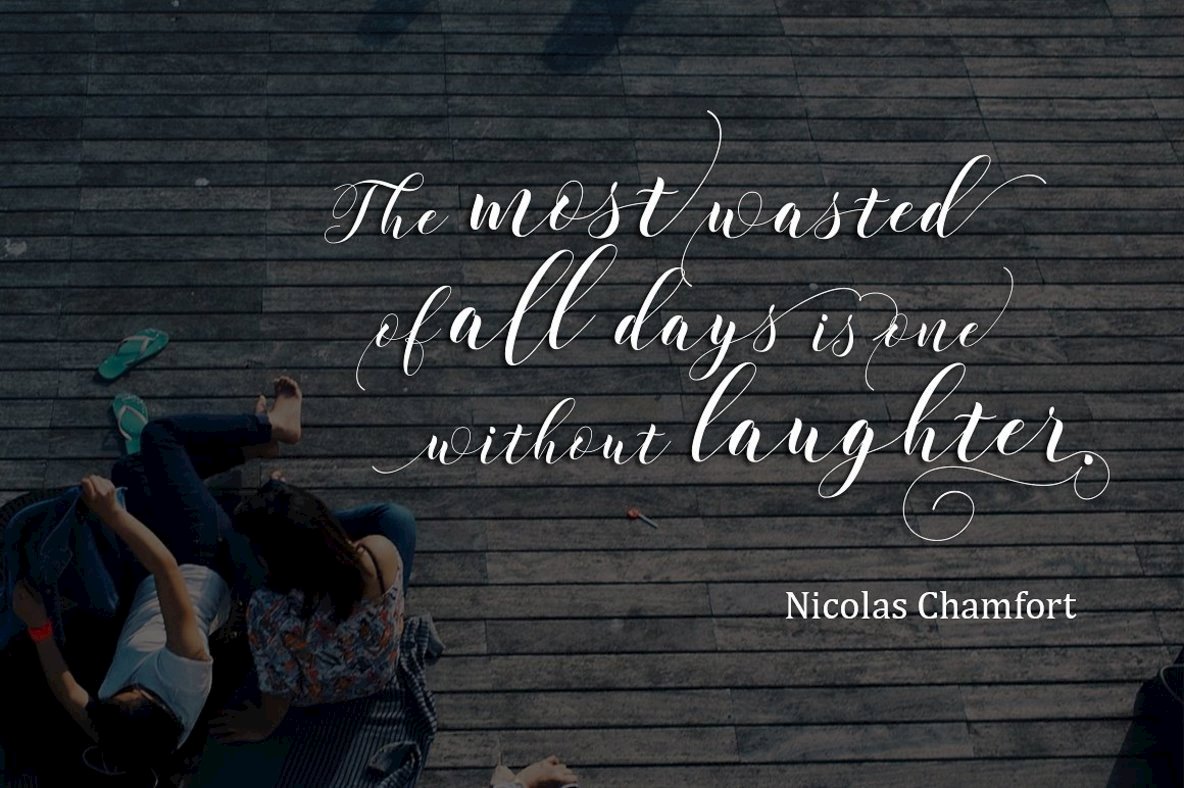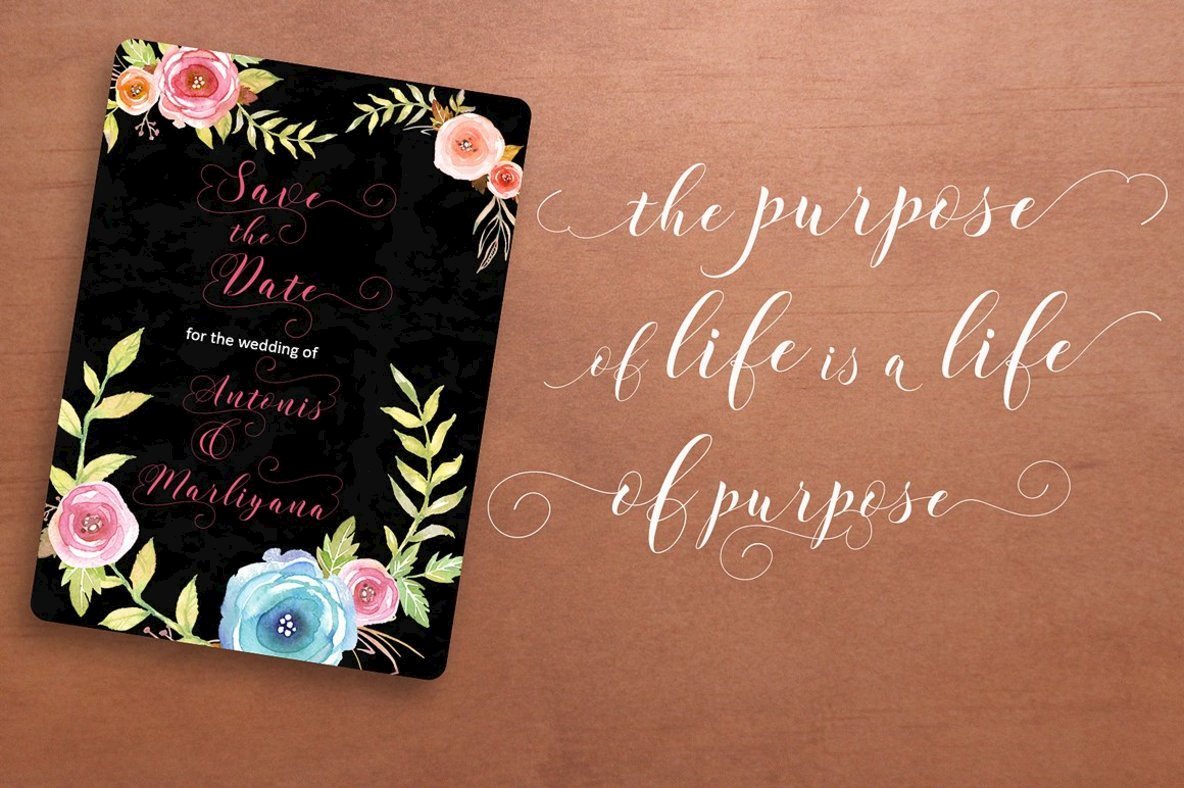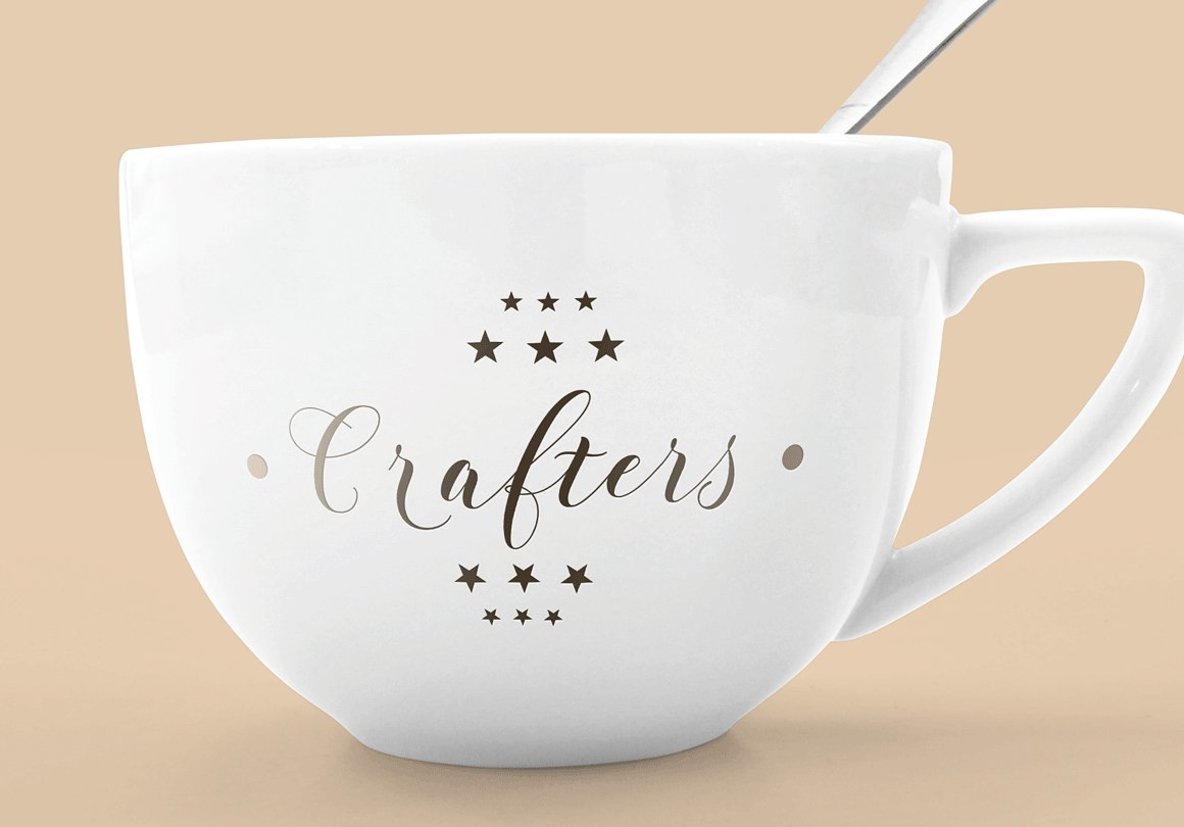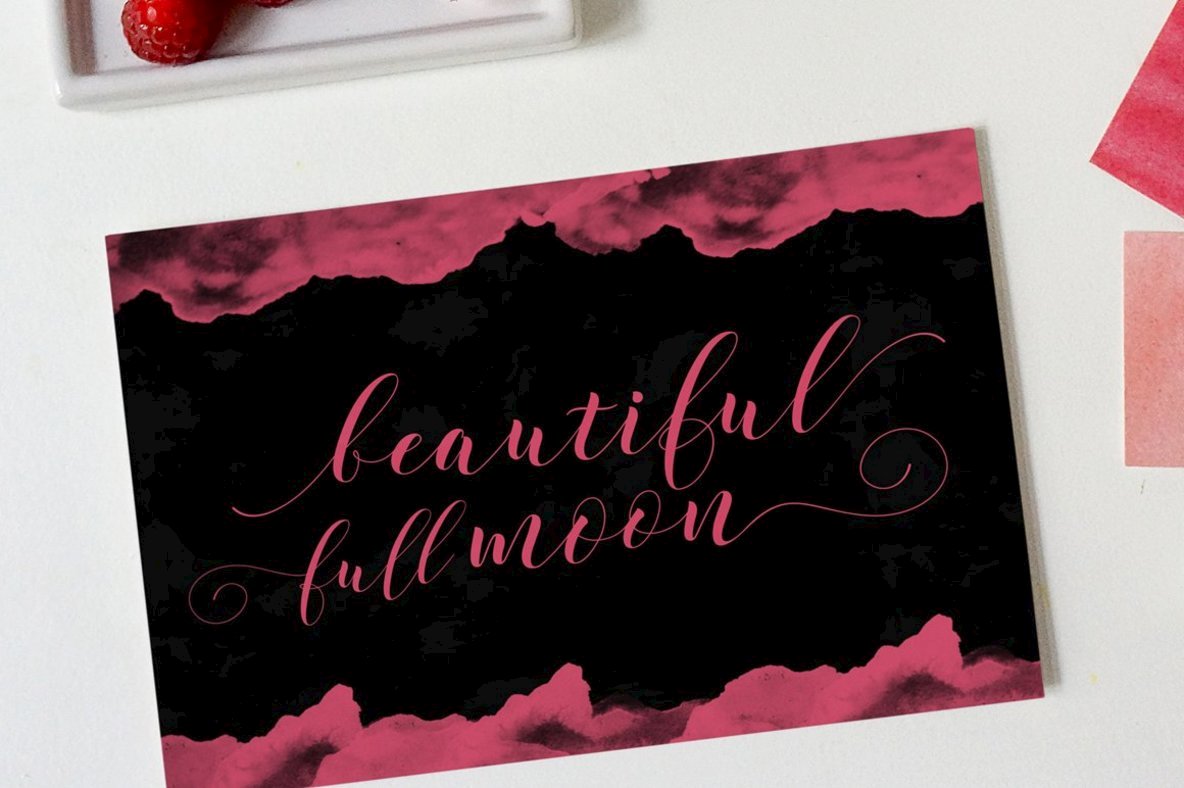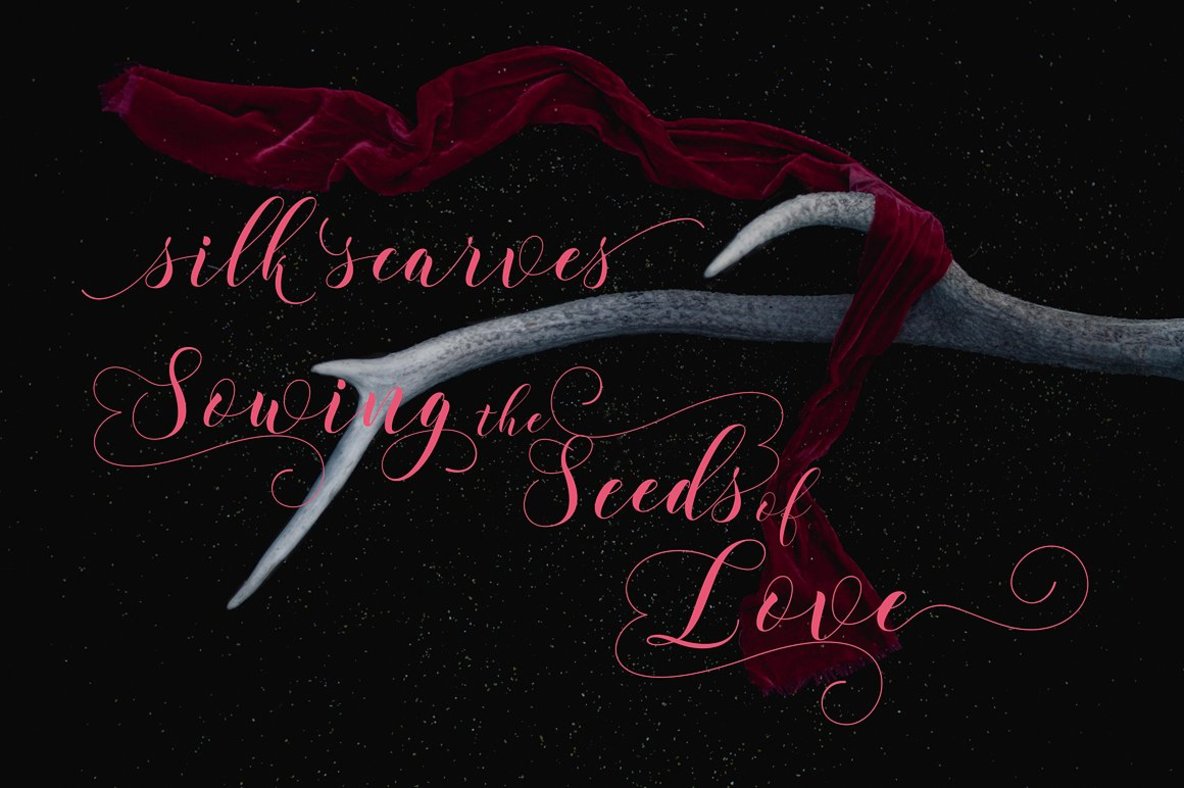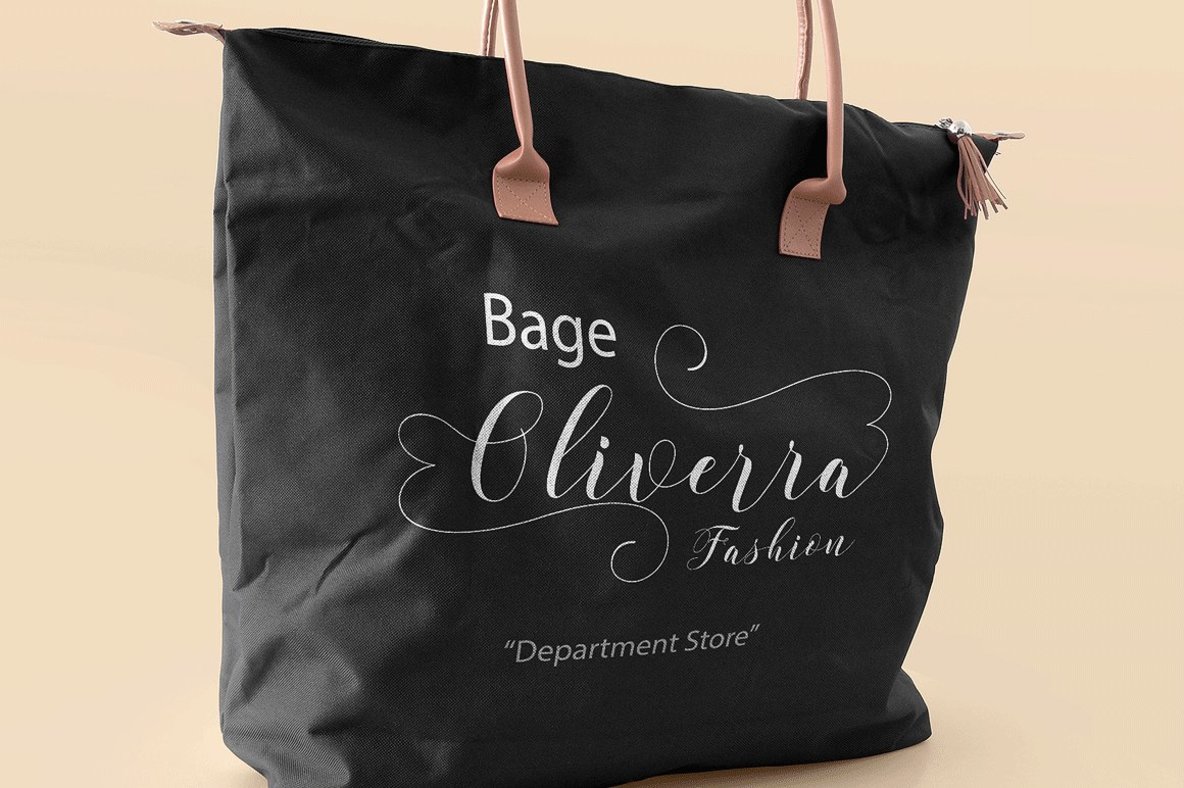
Wholler Font
Wholler
Wholler by Artisan Studio offers a contemporary take on classic calligraphy. Crafted with a focus on natural handwriting, this font presents a unique blend of modernity and elegance. Ideal for a range of design projects, Wholler maintains the fluidity of traditional calligraphy while providing a fresh aesthetic. Compatible with popular design software such as Adobe Photoshop, Adobe Illustrator, Adobe InDesign, Corel Draw, and Microsoft Office, Wholler supports an extensive array of European languages based on the Latin alphabet, including Breton, Catalan, Czech, and many others. This adaptability makes it suitable for diverse design purposes, from logos and headings to wedding invitations and t-shirt designs.Wholler: Elegant and Modern Calligraphy